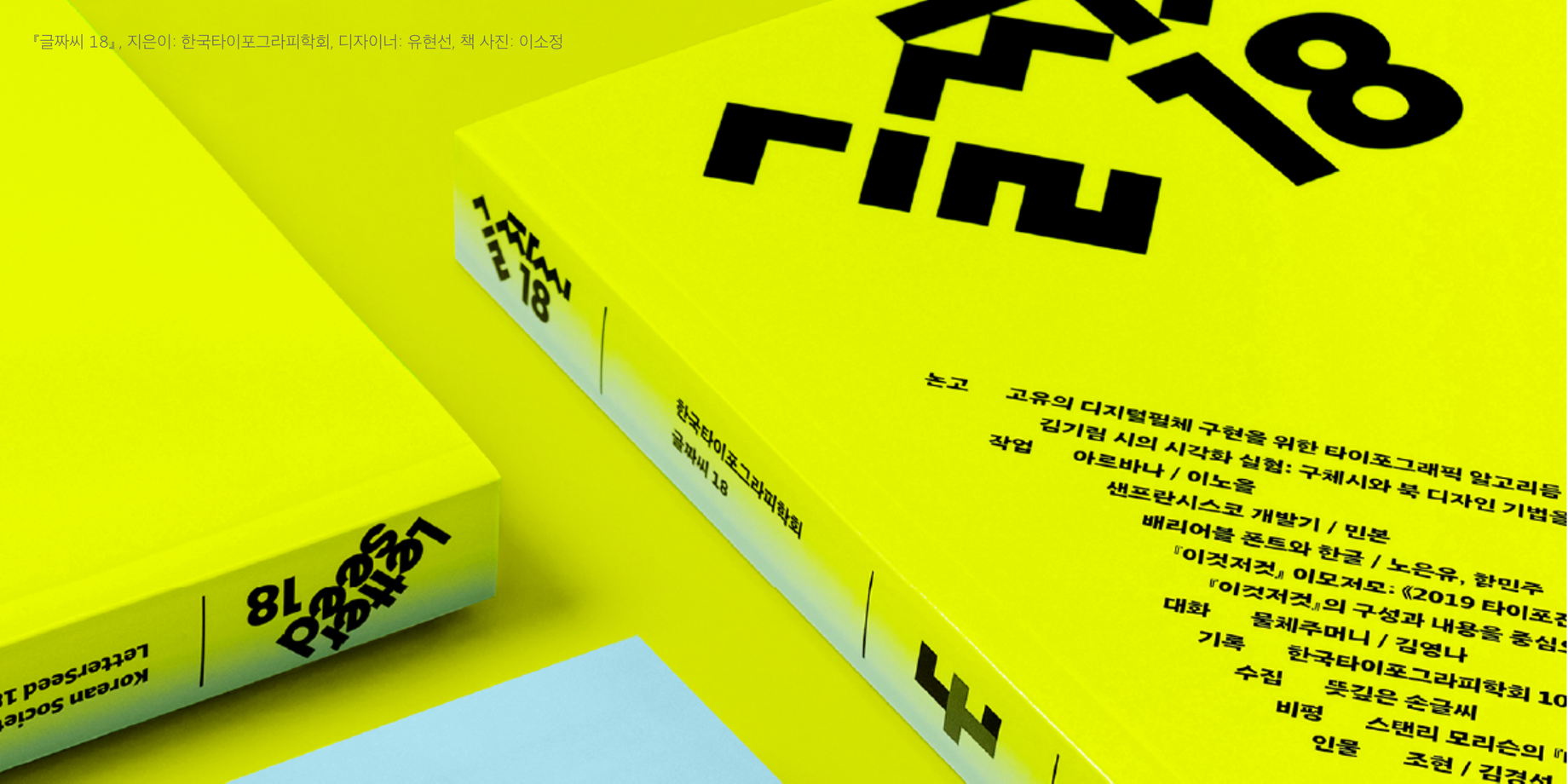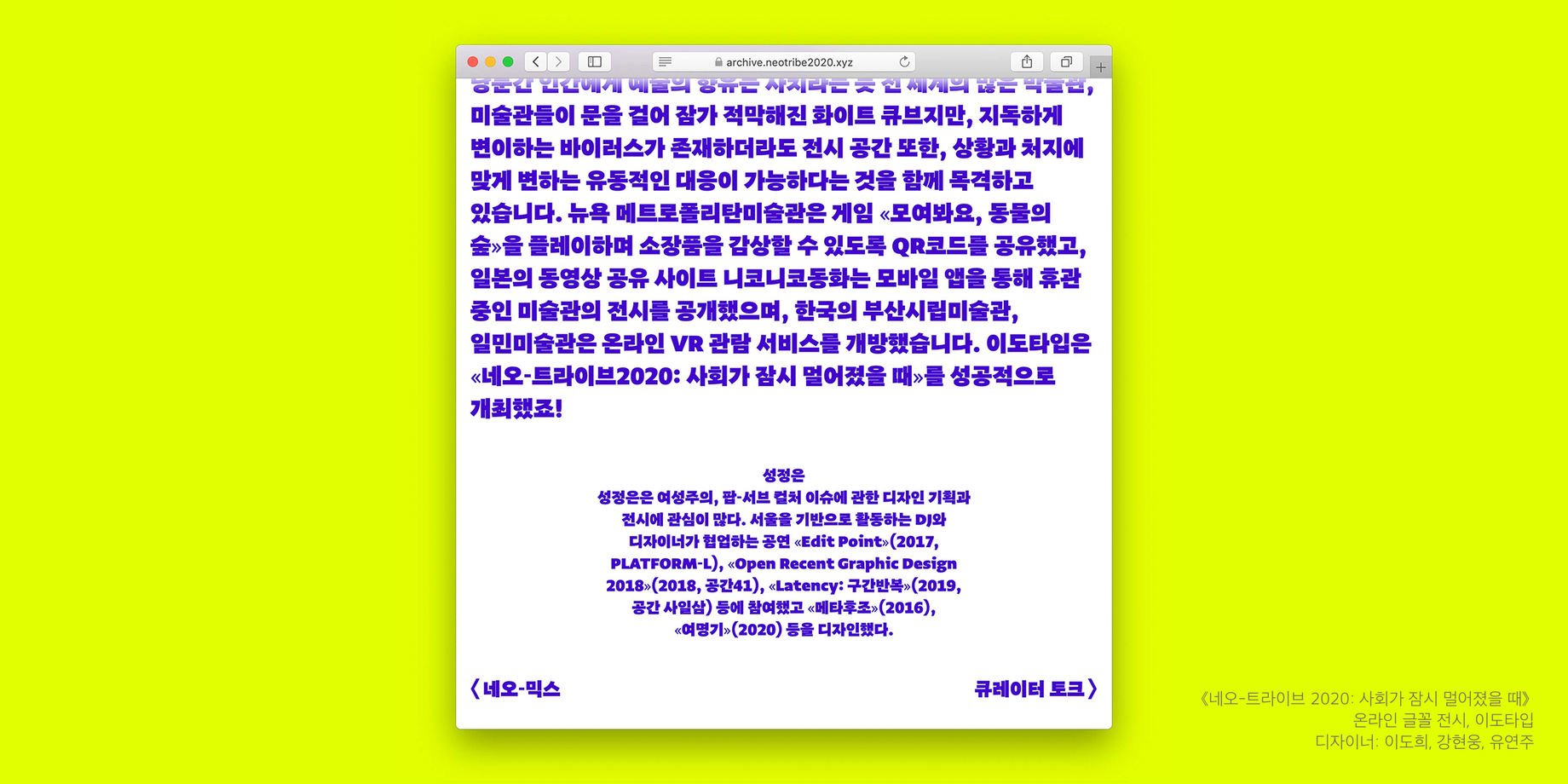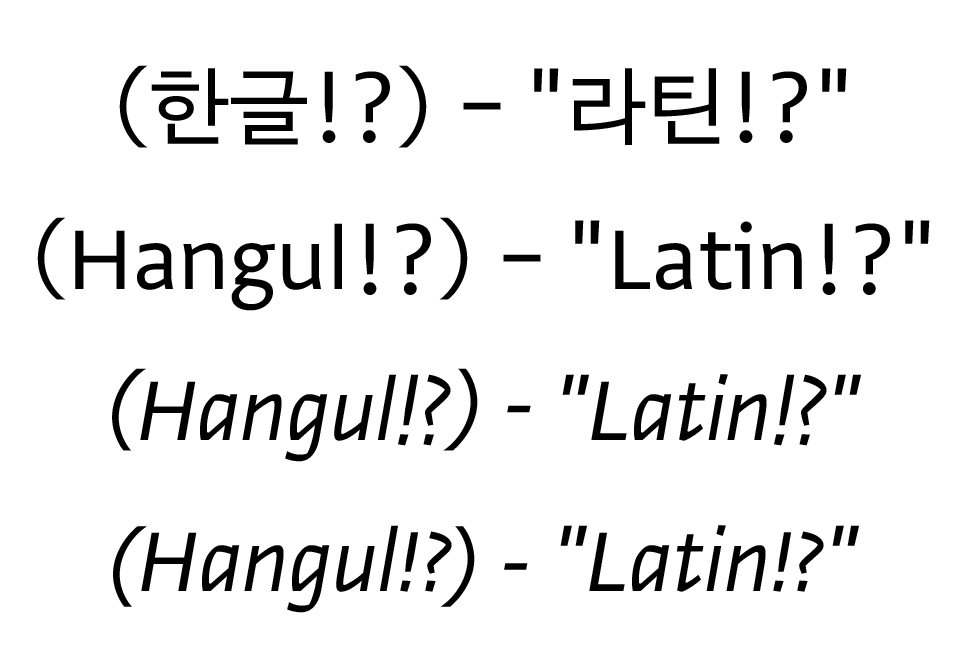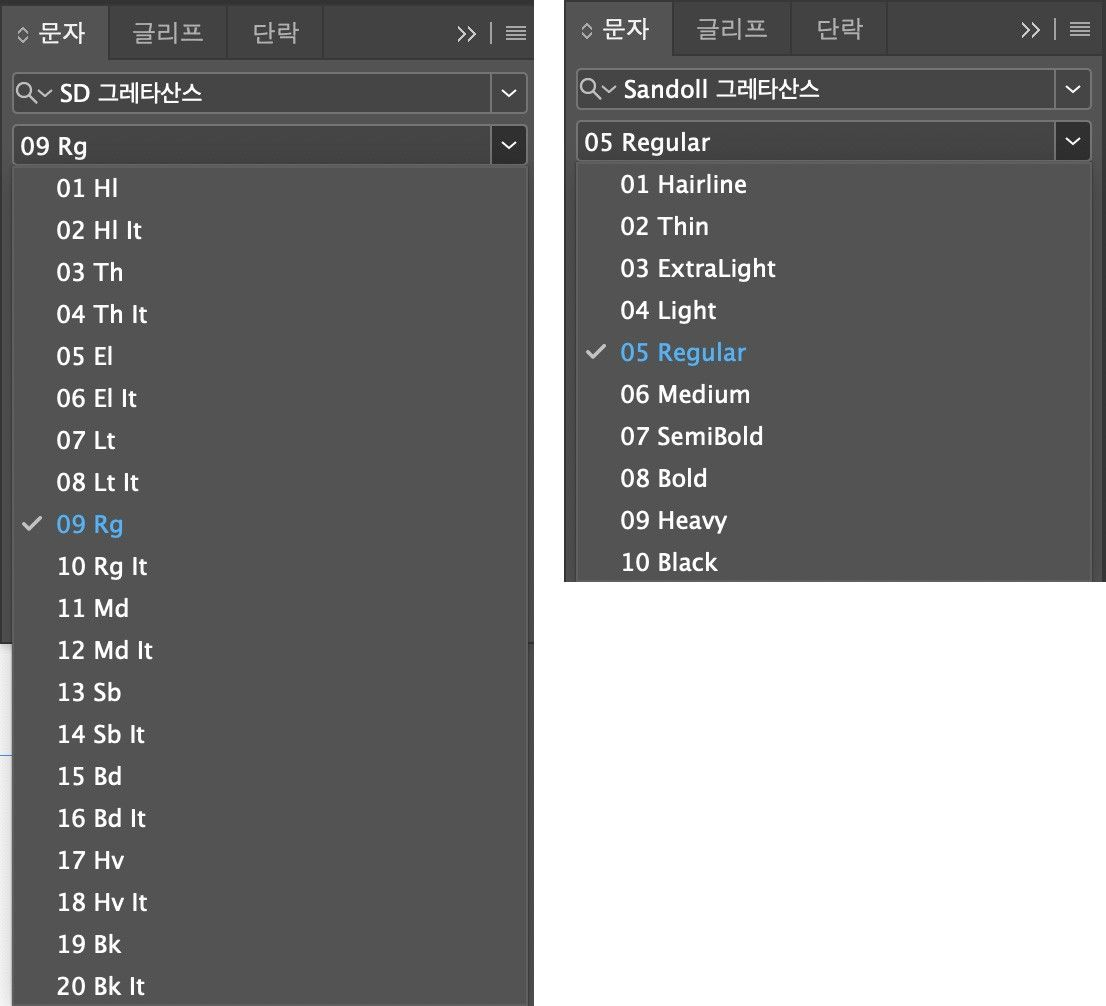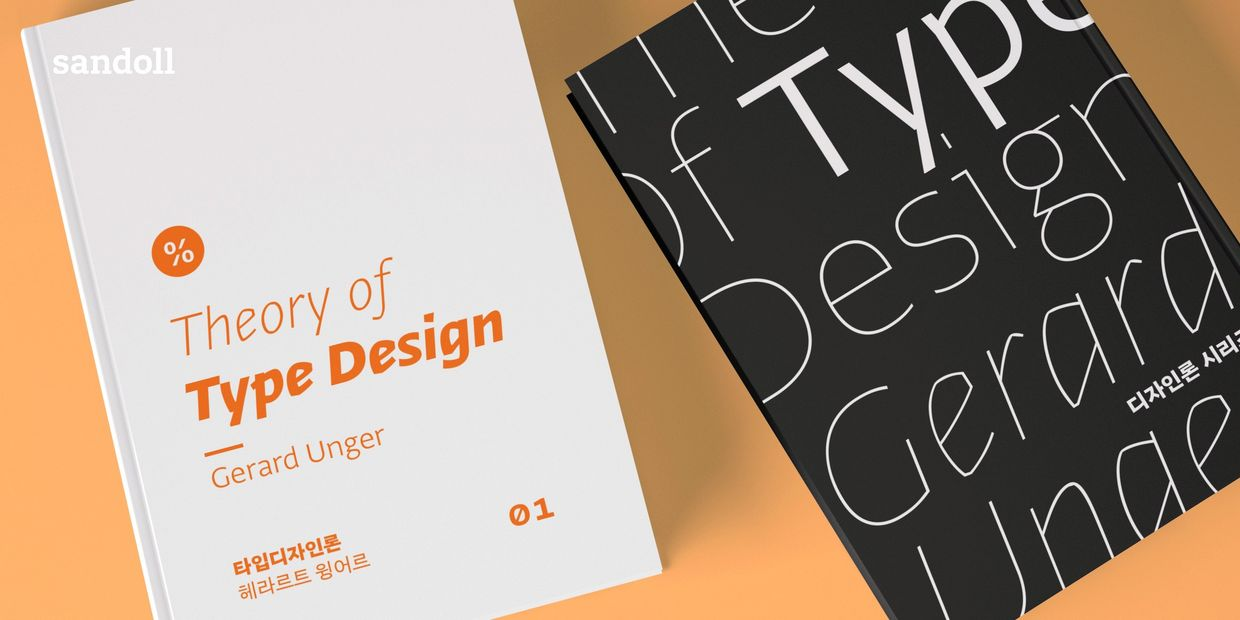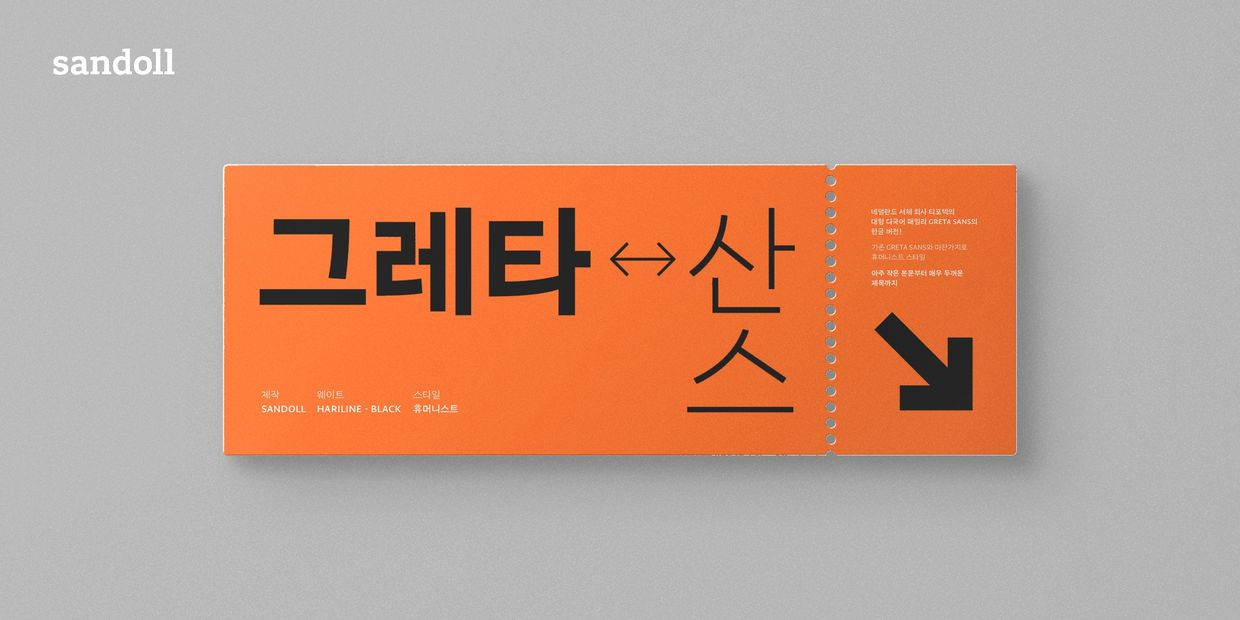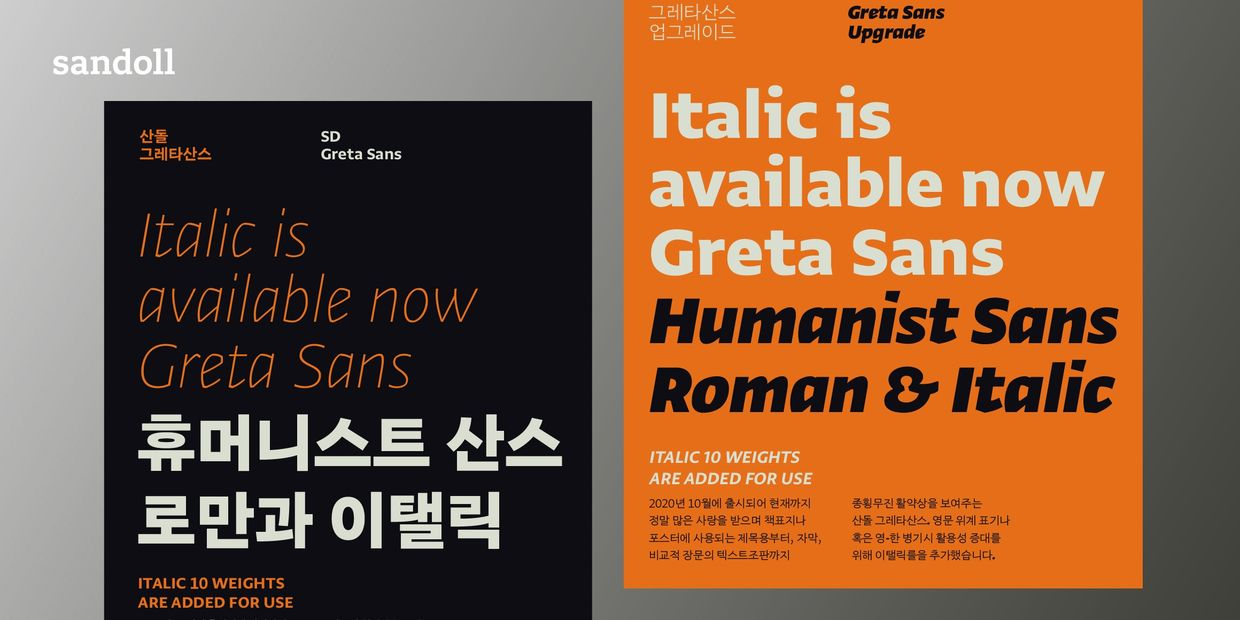
Creating a New Precedent, 「SD Greta Sans」
Typotheque, a font foundry representing the Netherlands, offers a wide range of multilingual font families. Among them, 「Greta Sans」 is well known for supporting a variety of languages and weights. In October 2020, Typotheque collaborated with Sandoll to create the Korean font family 「Sandoll Greta Sans」 based on 「Greta Sans」.
Since its release, 「Sandoll Greta Sans」 has demonstrated wide-ranging use—from ‘title use,’ where it is prominently applied to book covers and posters, to ‘body text use,’ where it is used on websites and in relatively long-form text. While it has already received ample appreciation, Sandoll continued to explore ways to further enhance font usability and increase user satisfaction.
Although various ideas were discussed, once feasibility was taken into account, opinions naturally converged into two directions. The first was the addition of ‘italic,’ which would allow information hierarchy to be expressed in a more structured way. The second was the development of ‘variable,’ aimed at users who want more finely adjustable weights beyond the existing ten weights.
What this article seeks to discuss in detail is the new font family 「SD Greta Sans」*, which includes italics. At a glance, it may seem like simply adding italics to the already developed 「Sandoll Greta Sans」. However, contrary to that assumption, the process of releasing 「SD Greta Sans」 was far from straightforward.
*Sandoll changed the brand naming of its fonts from ‘Sadoll’ to ‘SD’ starting in March 2023. This naming applies to fonts released after March 2023.
How to use italics in an optimized way
A key feature of 「SD Greta Sans」, released in March 2023, is the addition of Latin italics. The newly added Latin italics went through an adjustment process in which their size was increased to 125%. This was a necessary adjustment to ensure harmony with Hangul when mixing Hangul and Latin text, particularly for punctuation and symbols.
*The 「Greta Sans」 italics by Typotheque were designed by Peter Bil’ak and released in 2012.
In fact, adjusting the Latin italics was the most challenging aspect of releasing 「SD Greta Sans」. Italic is a slanted style used in Latin scripts, but it is not a style commonly used in Hangul*.
Sandoll designer Kim Seulgi’s font 「Dalseul」 is a vertical semi-cursive font based on Joseon-era letter writing. As a Hangul style comparable to Latin italics, ‘heullim’ (cursive) can be cited, but it is difficult to say that it has been fully systematized in the same way as Latin italics. Nevertheless, many font designers continue to explore diverse typological approaches for Hangul, and it is therefore thought that one day in the future, Hangul italics may be added to 「SD Greta Sans」.
If no adjustment had been necessary, it would have been possible to release the font while keeping the Latin italics created by Typotheque as they were. However, the key criterion Sandoll’s designers focused on was “how users actually use fonts in real contexts.”
While it was not possible to review every domestic publication, as many cases as possible were examined. In summary, recent trends show that Latin italics are more often used together with Latin text, or on their own, rather than alongside Hangul.
Accordingly, the italics in 「SD Greta Sans」 were set to be optimized for standalone Latin use. Certain punctuation and symbols adjusted for harmonious use with Hangul are provided as additional glyphs. In InDesign, when the language setting is applied as ‘Korean,’ the adjusted italics are automatically activated, allowing for more convenient use.
From top to bottom, this is a typesetting example showing: Hangul with punctuation, Latin with punctuation, punctuation used when Latin italics are set to the ‘Korean’ language option, and the default punctuation for Latin italics. Depending on the user’s intent, punctuation adjusted to the size and position of Hangul can be used to achieve better harmony with Hangul, while the default punctuation can be used for more English-optimized typesetting when using Latin italics alone. In programs other than InDesign, this does not switch automatically based on language settings and is instead provided as alternate glyphs.
A New Font Family, 「SD Greta Sans」
At the same time, it was necessary to consider how the font should be released. A decision had to be made on whether to add Latin italics to 「Sandoll Greta Sans」, released in 2020, or to launch it as a new font family under the name 「SD Greta Sans」. If usage expansion alone were the priority, adding italics to the existing font would have been the logical choice.
However, including Latin italics would increase the number of weights from 10 to 20, creating an excessive level of complexity that could not be overlooked. From the perspective of enhancing font usability, it was also important to respect the usability of users who do not use Latin italics. As a result, Sandoll consolidated its view around launching a new family, 「SD Greta Sans」.
Taking into account users who rarely use Latin italics, it was released as a new font family, clearly distinguished from 「Sandoll Greta Sans」.
「SD Greta Sans」 does not stop here. Work is currently underway on variable fonts, the final piece in expanding usability. We are preparing diligently to present it in an even newer form in the not-too-distant future. Once the variable version is complete, it is expected to enable users to apply the font more satisfactorily wherever they need it.